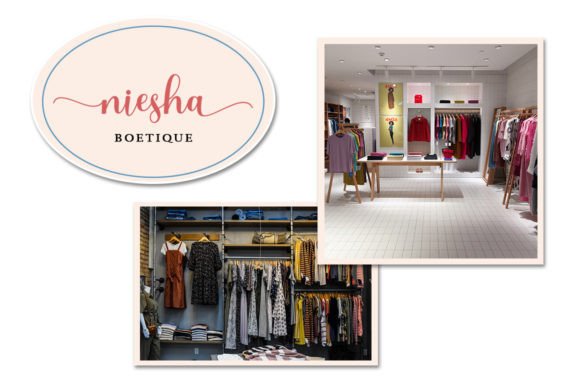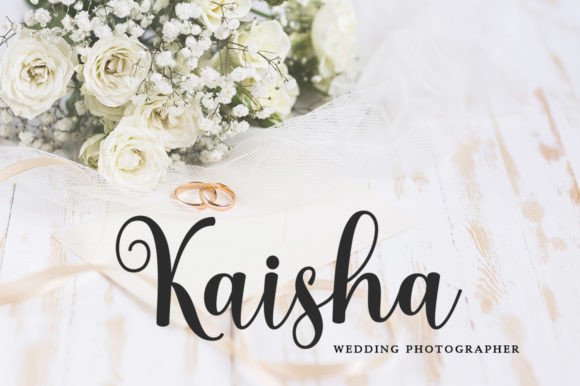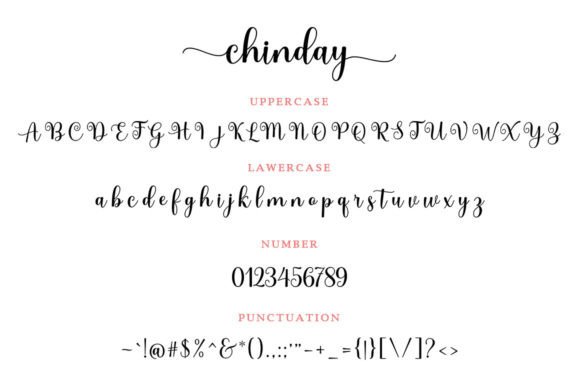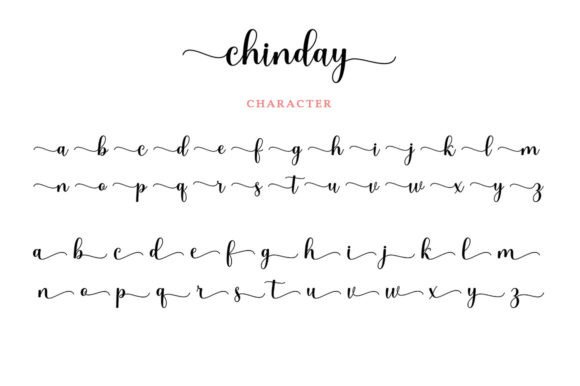
The Elegance of Chinday Font: A Designer’s Delight
Have you ever been in the middle of a design project, and suddenly, you’re stuck on finding the perfect font? I recall a wedding invitation project where I spent hours scouring through font libraries, only to settle for something that was ‘good enough.’ But what if I told you that there’s a font that can elevate your designs from ordinary to extraordinary? Enter the Chinday Font, a stylish and incredibly elegant handwritten font that’s about to become your new best friend.
A Personal Review: What I Love About Chinday Font
I’ve had the pleasure of working with Chinday Font on several projects, and here’s what I love about it:
- ✨ Elegant and sophisticated: Chinday Font exudes luxury and refinement, making it perfect for high-end designs.
- ✅ Versatile: From wedding invitations to business cards, this font adapts seamlessly to various design applications.
- 🌈 Vibrant and expressive: The font’s unique character set and alternates allow for creative experimentation and customization.
- 💻 PUA encoded: Easily access all glyphs and alternates, making it a breeze to work with.
While Chinday Font is an excellent choice, there are a few minor considerations to keep in mind:
- 🤔 Legibility at small sizes: As with many script fonts, Chinday may become tricky to read at very small sizes (below 10pt). Use it judiciously.
- ⚠️ Overuse of alternates: With so many beautiful alternates, it’s easy to get carried away. Balance is key to maintaining a cohesive design.
The Story Behind Chinday Font
While the actual origins of Chinday Font are unclear, it’s easy to imagine that it was crafted by a talented type designer with a passion for elegant handwriting. Perhaps they drew inspiration from classic calligraphy and modern script fonts, carefully balancing beauty and legibility. Whatever the story, Chinday Font has undoubtedly captured the hearts of designers worldwide.
| Font Name | Chinday Font |
| Author | Letter Muray |
| What is Chinday Font best suited for? | Chinday Font excels in designs that require an elegant, handwritten touch, such as wedding invitations, thank you cards, quotes, and greeting cards. |
| Is Chinday Font PUA encoded? | Yes, Chinday Font is PUA encoded, allowing easy access to all glyphs and alternates. |